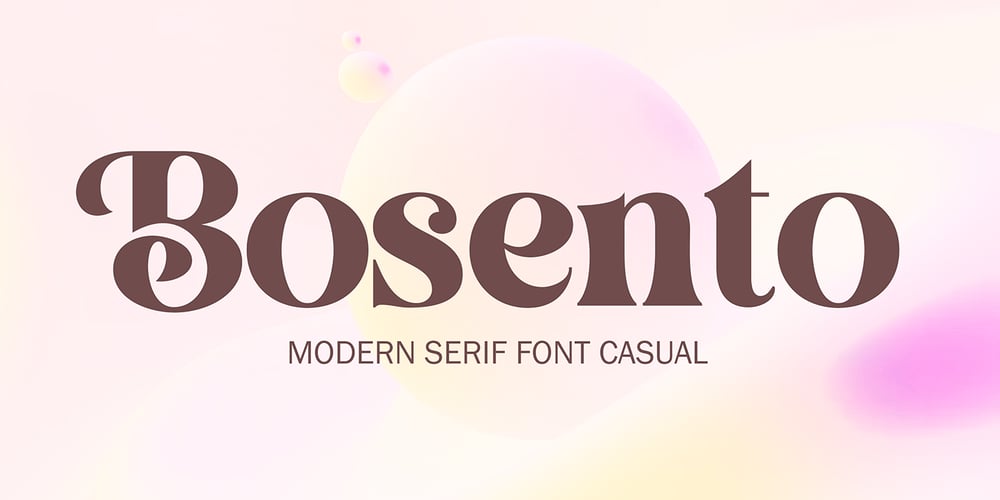
Bosento Font Family was designed by khaidir and published by Gatype. Bosento contains 1 styles and family package options. Hi everyone, come back from us The Bosento font is perfect forYour projects today are branding, poster design, t-shirts, invitations, designs for children, and editorial design. You will find a lot of glyphs, including ligatures, to look elegant in this bold serif. OpenType features include style sets, character variants, starting and ending forms, and multilingual support.Important information:To access the alternatives, you must have access to an older version of Photoshop to copy/paste the glyphs from the included PSD, OR the Glyphs Panel, which can be found in Photoshop CC or any Version of Adobe Illustrator.Cheer!